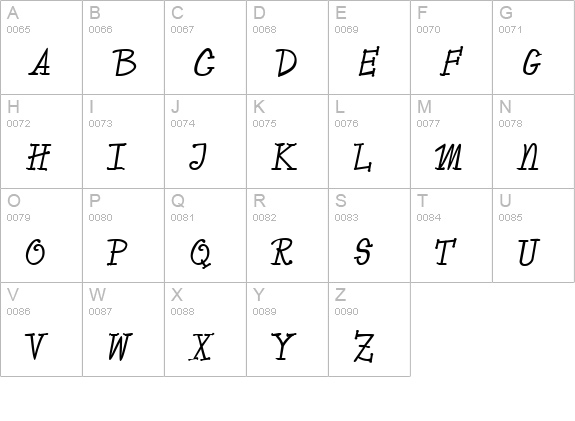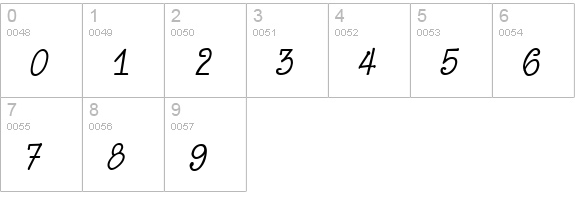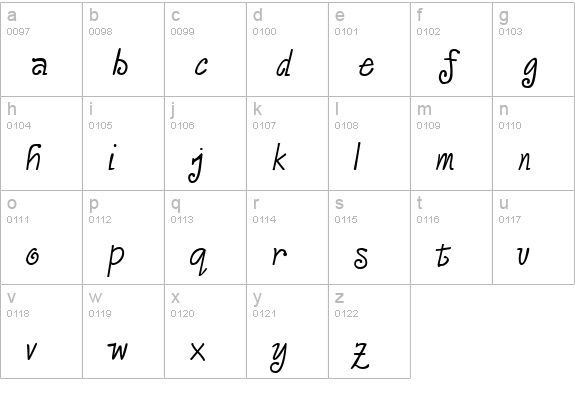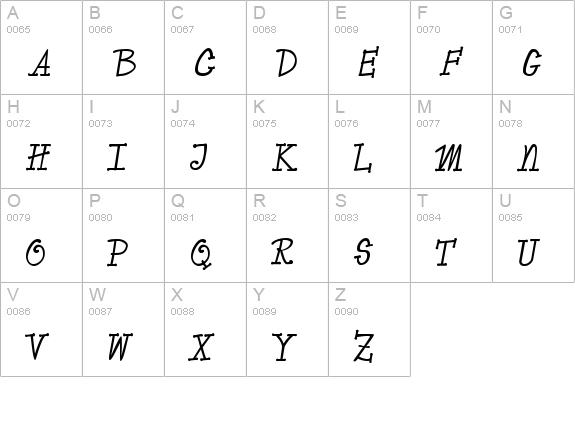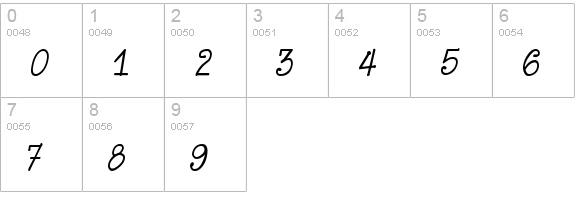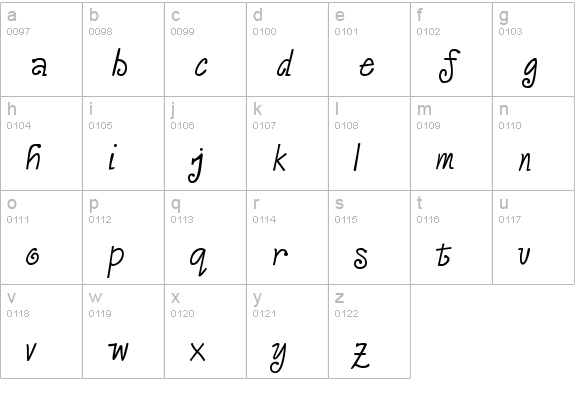
Vassallo Regular Font Details
Vassallo Regular is the standard, neutral variant in the Vassallo typeface family \xE2\x80\x94 well suited to general body text, paragraphs, and standard typographic work.
Vassallo Regular is a versatile and elegant font that combines classic charm with a modern twist. Its clean lines and balanced proportions make it perfect for a wide range of design projects, from brand identity to editorial layouts. This font features a harmonious blend of sharp angles and smooth curves, resulting in a distinct and sophisticated look. Its slightly condensed letterforms allow for maximum readability while maintaining a refined and polished appearance. Vassallo Regular is available in a variety of weights, giving you the flexibility to create eye-catching headlines or add a touch of elegance to body text. Whether you're designing a logo, a magazine spread, or a website, this font will effortlessly elevate your project. One of the best things about Vassallo Regular is that it is free to download at FontsMarket.com. This means that you can enjoy its beauty and versatility without any cost. Simply head over to FontsMarket.com, search for Vassallo Regular, and get ready to elevate your designs with this stunning typeface. Don't miss out on the opportunity to enhance your creative projects with Vassallo Regular. Download it for free at FontsMarket.com and let its timeless appeal and effortless elegance elevate your designs to new heights.